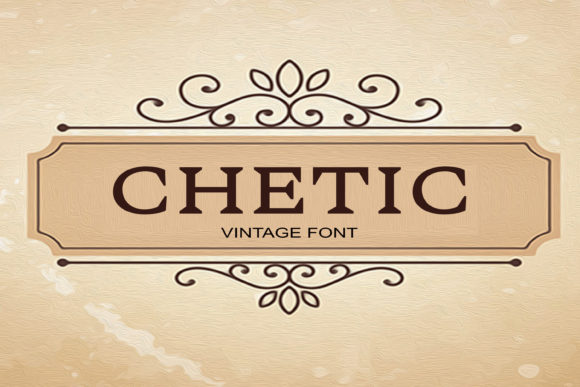
Chetic Font
Prepare yourself to be captivated by Chetic, the extraordinary serif typeface that evokes a timeless elegance like no other. Step into a world of captivating designs where nostalgia meets modernity, leaving an unforgettable imprint on your every creation.
Chetic's intricate details and sweeping curves dance across the page, whispering stories of a bygone era. Its vintage charm adds an air of sophistication to your projects, inviting you to craft designs that stand the test of time. Whether you're a seasoned designer or just starting your creative journey, Chetic will elevate your creations, adding a touch of timeless allure.
Let Chetic's graceful serifs guide your words, creating a symphony of visual delight. Its classic appearance will effortlessly enhance your designs, capturing the hearts of your audience. From elegant logos to captivating posters, Chetic empowers you to create designs that resonate at the deepest level.
Indulge in the beauty of Chetic and unlock endless possibilities. Its versatility knows no bounds, adapting seamlessly to a myriad of design styles. Whether you seek a touch of retro charm or a timeless foundation for your modern creations, Chetic delivers an unparalleled level of versatility.
Experience the magic of Chetic today and let its vintage elegance ignite your imagination. Join the ranks of discerning designers who have embraced the charm of Chetic, creating designs that captivate and inspire.